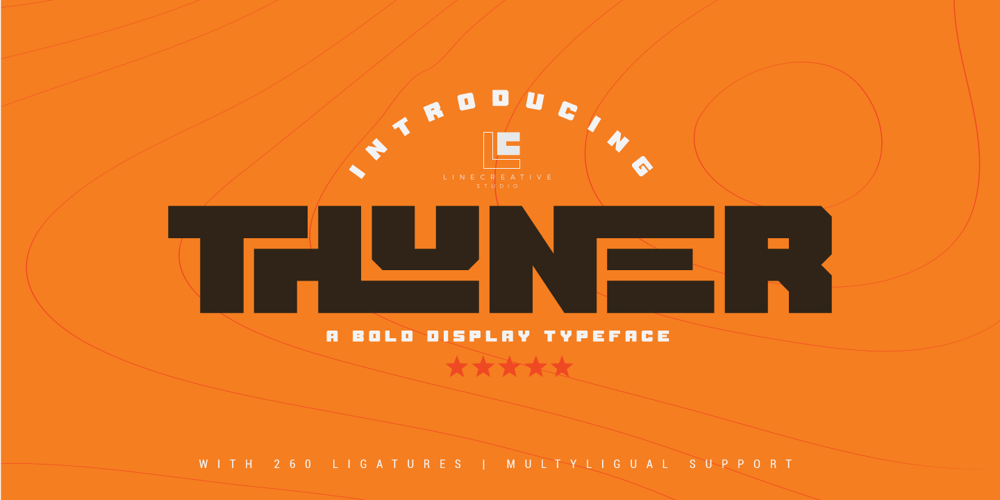
Thuner Font Family was designed by Ari Juanda and published by Linecreative. Thuner contains 1 styles and family package options. Thuner is a chunky bold typeface perfect for any fun quirky design work! This font is equipped with ligatures and will be very good for your work such as posters, logos, t-shirt designs, branding, or even large scale artworks.What you get dear, you will get :1. Thuner- A clean San serif font including Upper & Lowercase characters(ALL CAPS),2. Ligatures Character (260 characters) 3. Supports Multi linguage (Latin Western Europe), Numbers and Punctuation